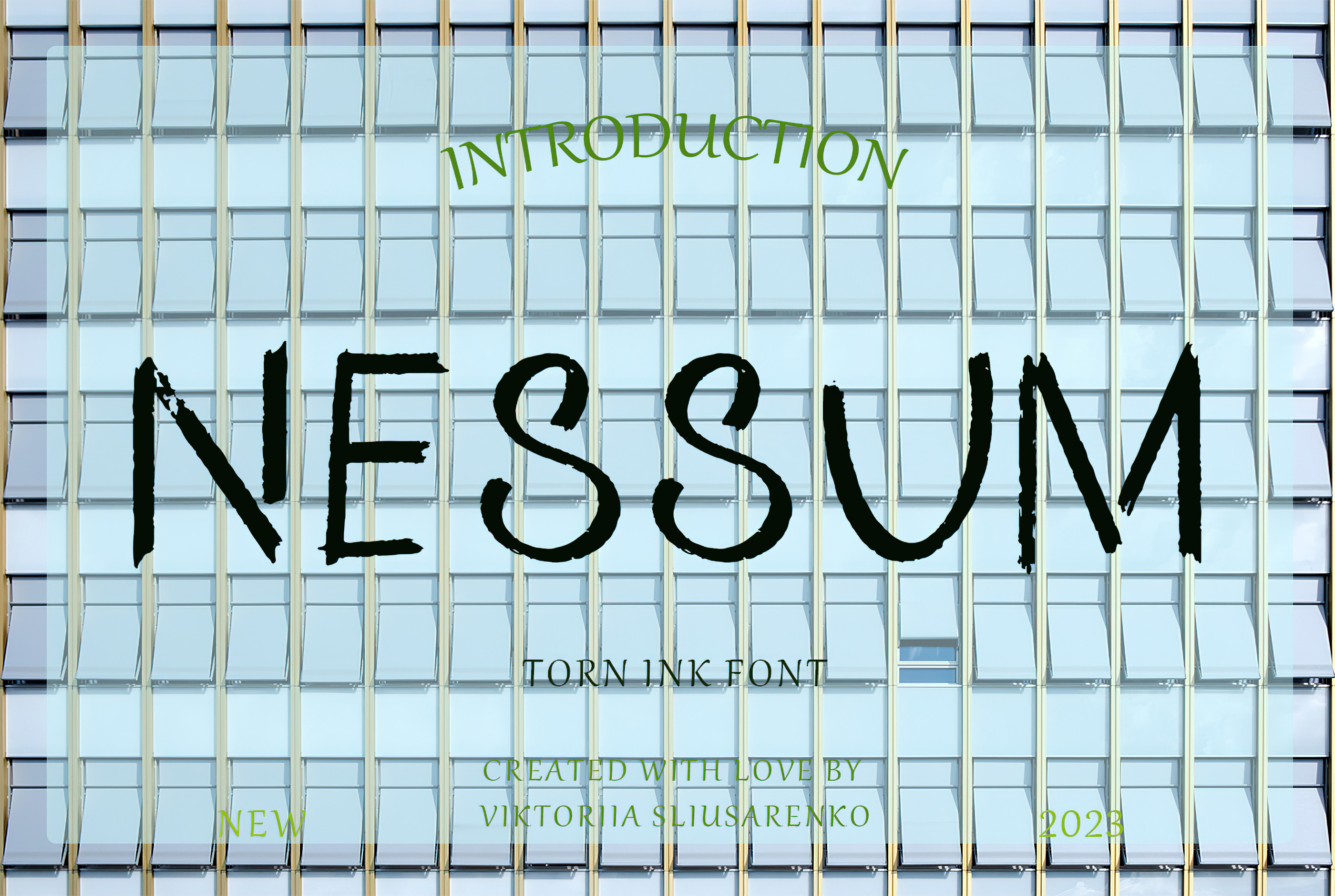
NESSUM - torn ink font
Introducing Nessum, an exquisite handwritten font that adds a personal touch to your designs. Crafted as a vector font, it showcases charming uneven edges, imbuing your creations with a rustic and vintage allure. With an impressive collection of 38 unique ligatures, Nessum exudes charm and stands out with its distinctiveness.
Resembling the elegant strokes of a calligraphic flat pen, Nessum is a versatile choice for a wide range of applications, from logos and branding to social media graphics and invitations. The font's hand-drawn style infuses authenticity and warmth into every design, making it an invaluable addition to your font library.